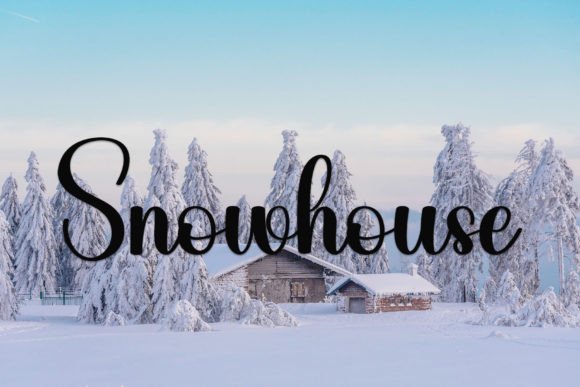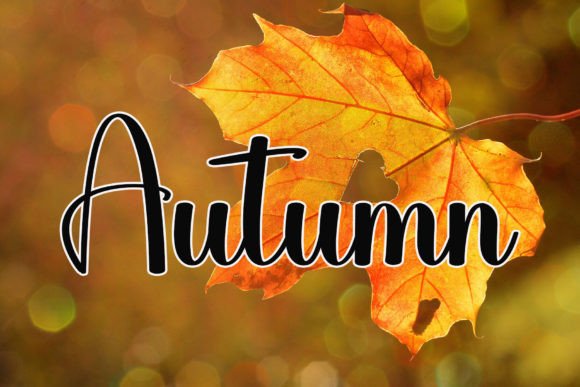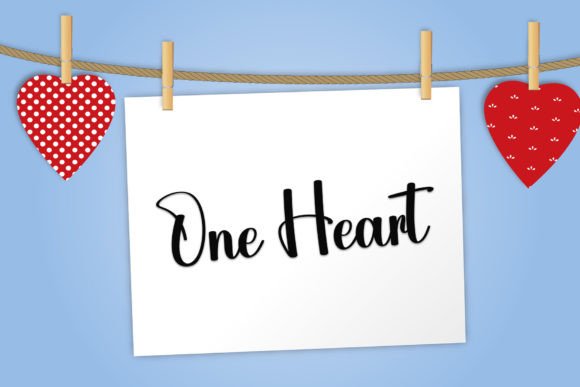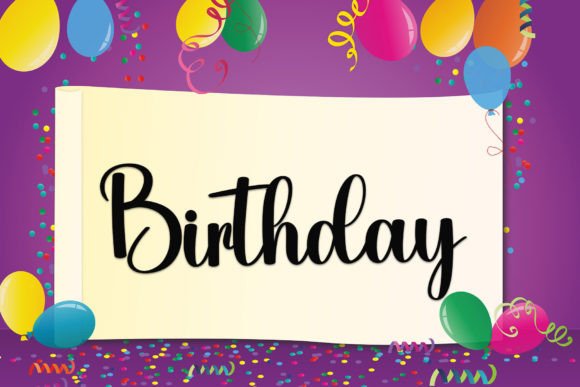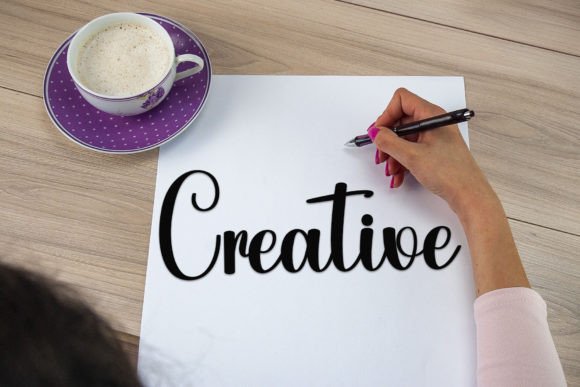
Candy Christmas Font: The Sweetest Addition to Your Design Collection
Are you looking for a font that embodies the magic of the holiday season? Look no further than the Candy Christmas Font, a stunning handwritten font that is sure to add a touch of elegance and whimsy to your designs. With its unique blend of classic charm and modern flair, this font is perfect for designers and crafters who want to create spectacular designs that stand out from the crowd.
A Beautifully Crafted Font
Candy Christmas Font is a beautifully crafted font that boasts an elegant touch, making it perfect for a wide range of projects, from holiday cards and invitations to branding and packaging. The font’s intricate details and smooth lines give it a timeless quality that will make your designs look fresh and sophisticated. Whether you’re a professional designer or a DIY crafter, this font is sure to become a favorite in your collection.
Distinct and Timeless Style
One of the standout features of the Candy Christmas Font is its incredibly distinct and timeless style. The font’s unique blend of classic and modern elements gives it a look that is both nostalgic and contemporary, making it perfect for designers who want to create designs that are both nostalgic and fresh. The font’s elegant lines and intricate details also make it perfect for use in a wide range of design applications, from logos and branding to stationery and packaging.
Perfect for Holiday Designs
As the holiday season approaches, designers and crafters are on the lookout for fonts that capture the magic and wonder of this special time of year. The Candy Christmas Font is the perfect choice for holiday designs, with its elegant and whimsical style evoking the joy and excitement of the season. Whether you’re creating holiday cards, invitations, or social media graphics, this font is sure to add a touch of festive flair to your designs.
Use it to Create Spectacular Designs
With the Candy Christmas Font, the design possibilities are endless. Here are just a few ideas to get you started:
- Create stunning holiday cards and invitations that will make your friends and family feel special.
- Design beautiful branding and packaging for your business or product.
- Make your social media graphics stand out with this unique and eye-catching font.
- Use it to create gorgeous stationery and gift tags that will add a personal touch to your gifts.
Why Choose the Candy Christmas Font?
So why choose the Candy Christmas Font for your design projects? Here are just a few reasons:
- Unique and distinctive style: This font has a one-of-a-kind look that will set your designs apart from the crowd.
- Elegant and sophisticated: The font’s elegant lines and intricate details give it a sophisticated and refined look.
- Versatile: This font can be used in a wide range of design applications, from logos and branding to stationery and packaging.
- Font Type: Handwritten
- Font Style: Elegant, whimsical
- Use for: Holiday designs, branding, packaging, stationery, and more